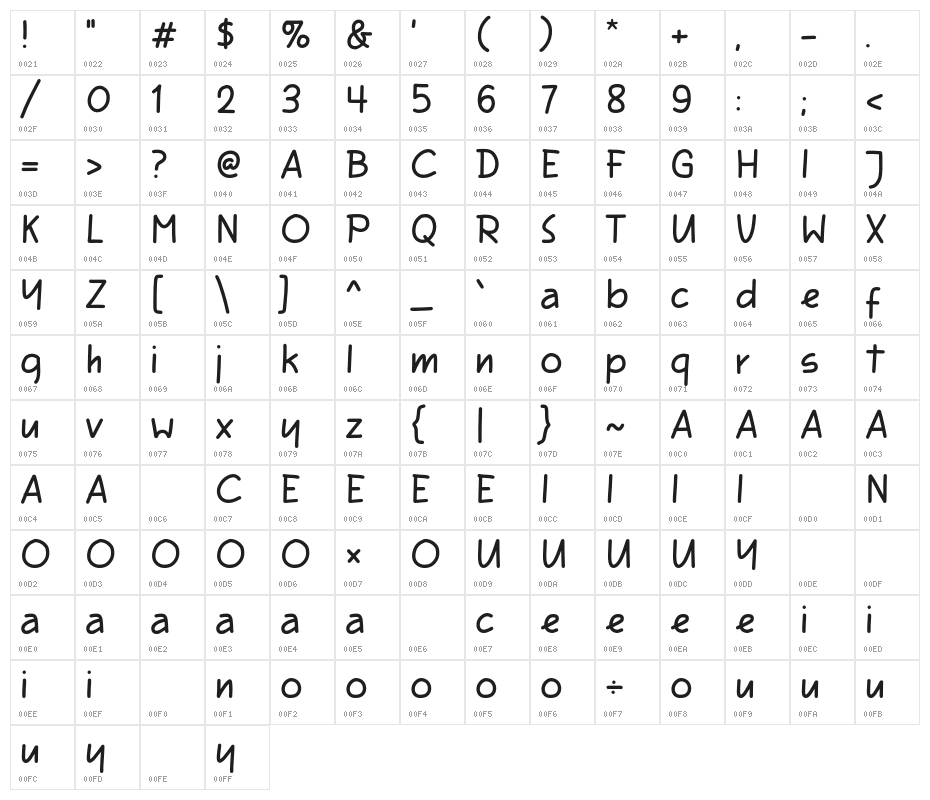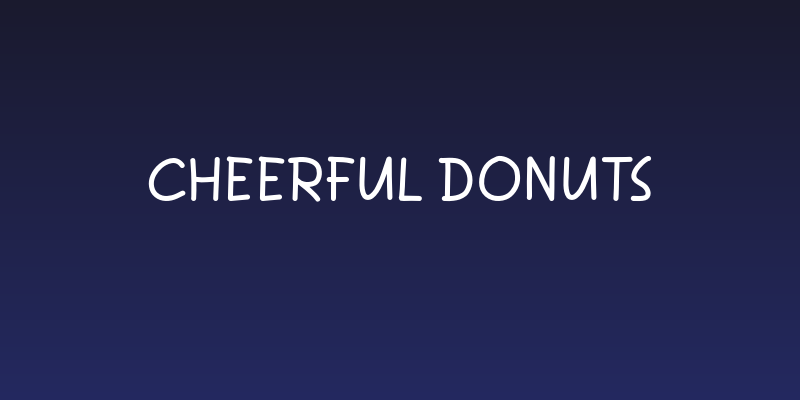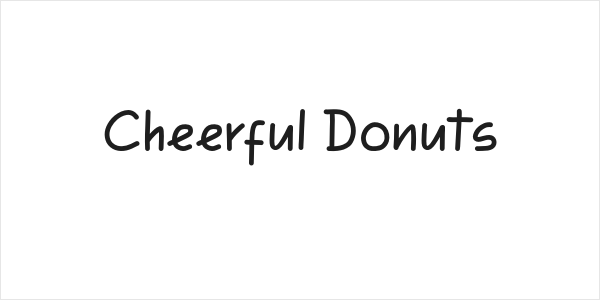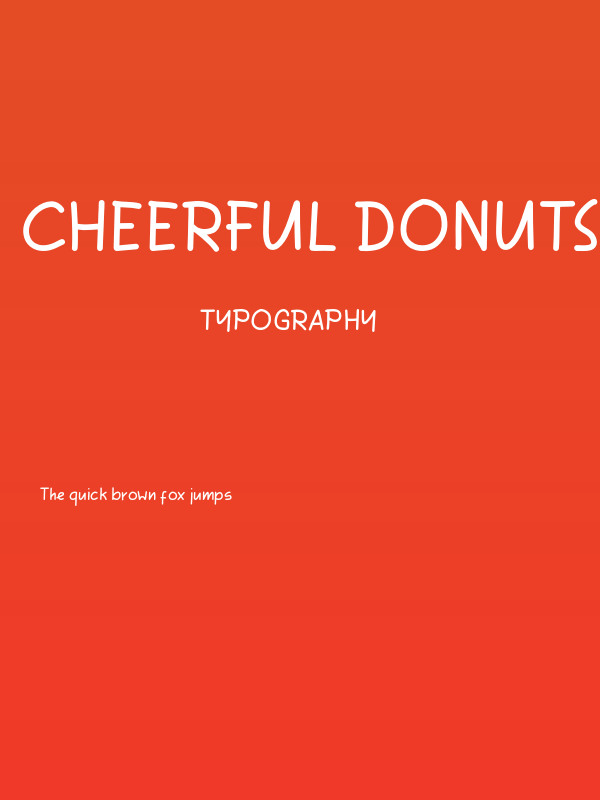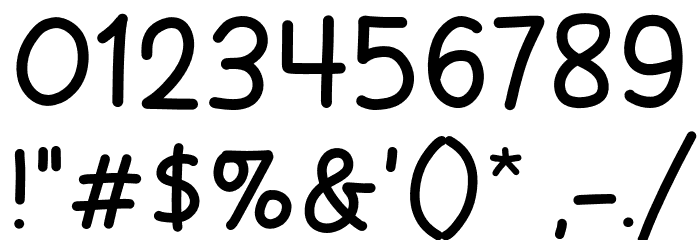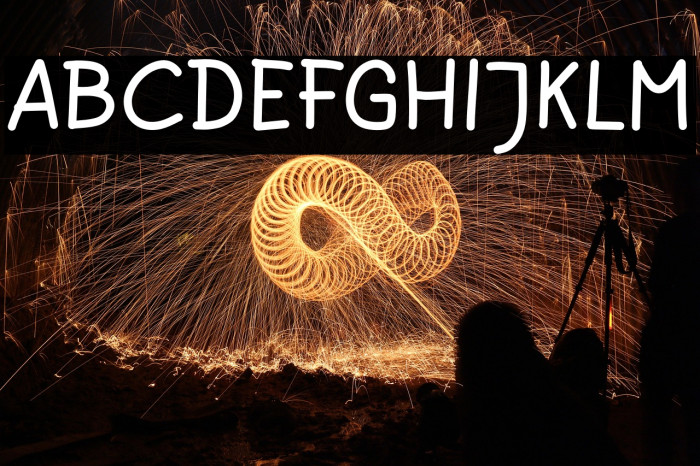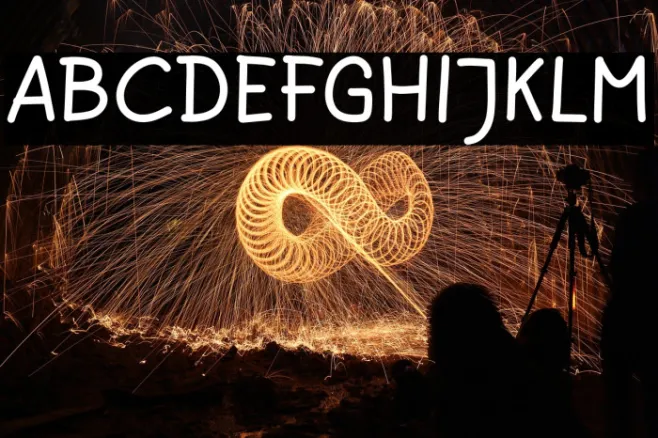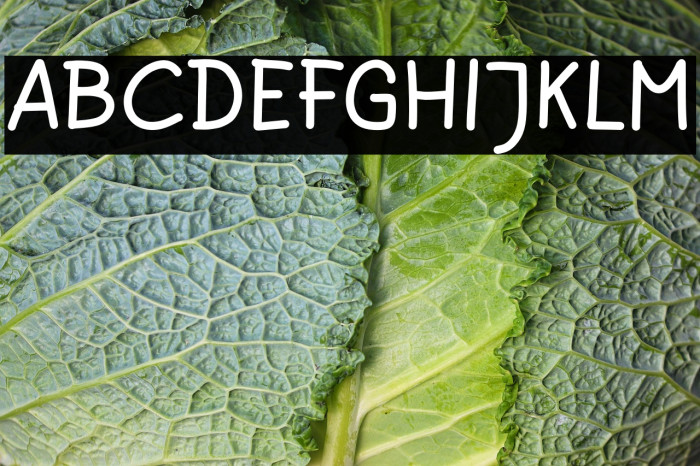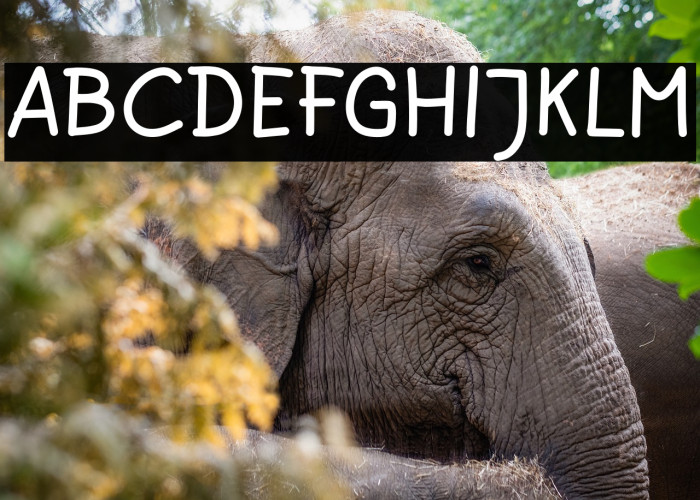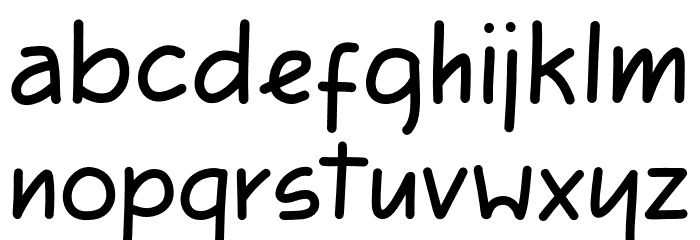
Cheerful Donuts Font
Cheerful Donuts Description
This font exudes a playful and friendly vibe, characterized by its rounded, smooth letters that convey a sense of warmth and approachability. The strokes are consistent in thickness, giving it a uniform appearance that enhances readability. The slightly irregular shapes of the characters add a touch of whimsy, making it ideal for casual and fun designs. The numerals and special characters maintain the same playful style, ensuring a cohesive look across all text elements. Its simplicity and charm make it suitable for a variety of creative projects.